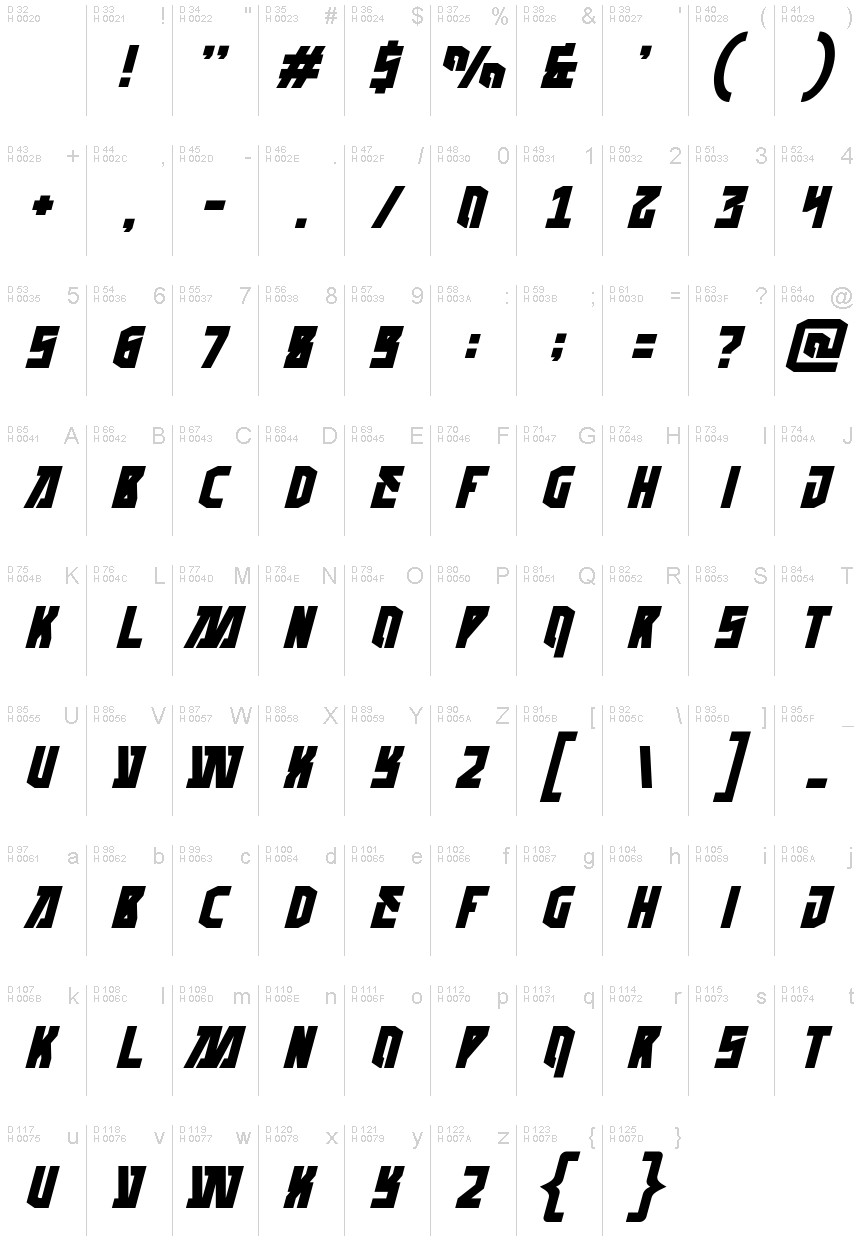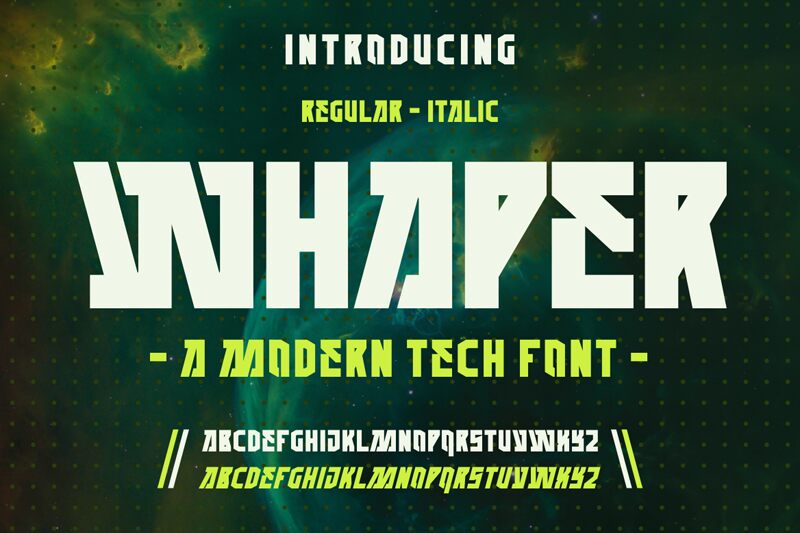
WHAPER Italic
Whaper Italic font by Gilang Ternadho is a bold, angular display font with a techno style. It has a condensed width and geometric design with sharp edges. The high contrast and dynamic form give it a modern, aggressive mood while maintaining solid fills. This font is free for personal use.
Whaper Italic font offers versatile applications, such as bold headlines for media content, eye-catching social media graphics (including story text), presentation slides needing memorable impact, dynamic branding or advertisements requiring modern appeal, event promotional materials emphasizing energy and urgency, technology-focused video game titles with futuristic flair—and more!